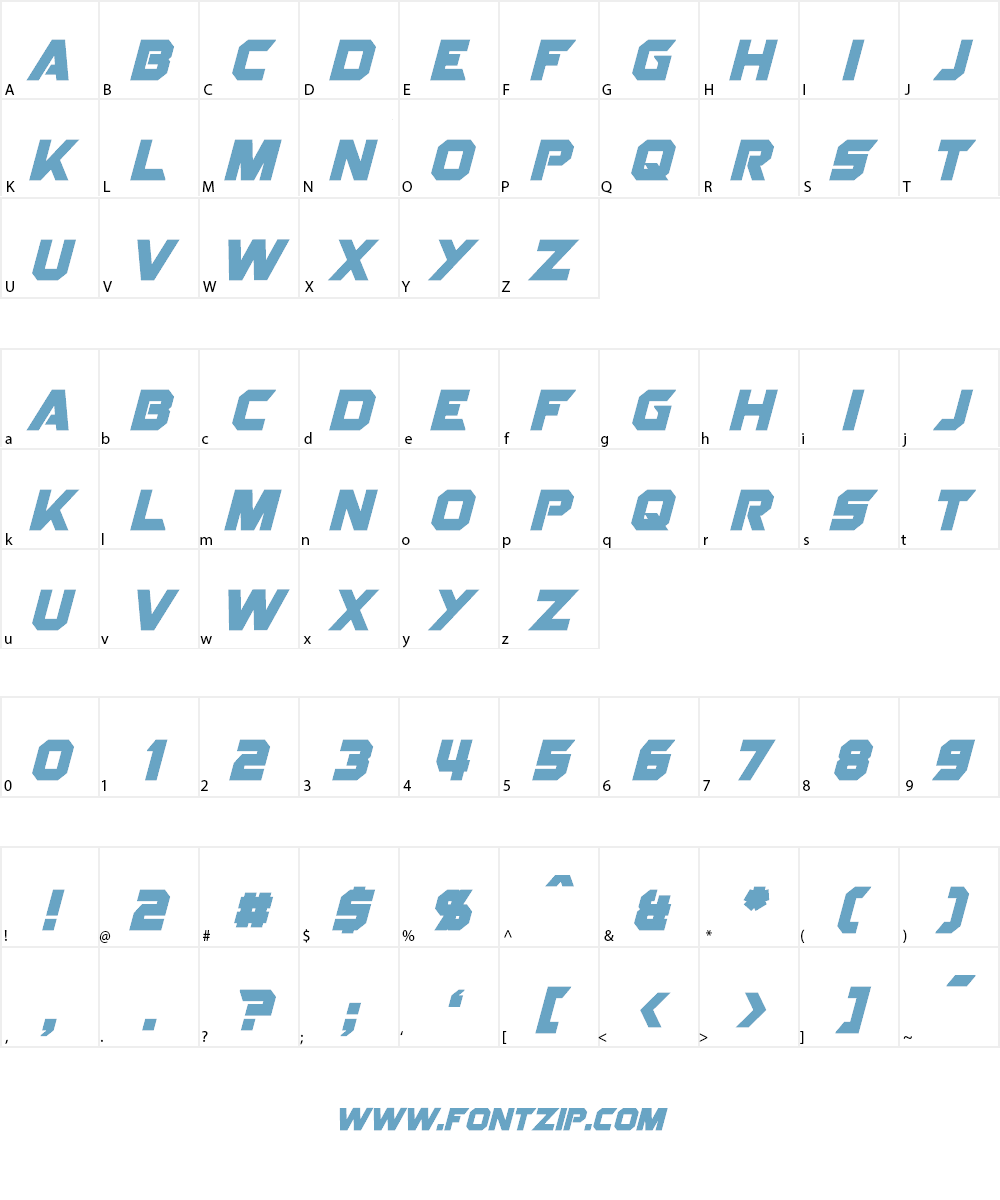
Starlord is a thick, angular font loosely based on the title logo of Marvel's Guardians of the Galaxy movie. Includes full alpha-numerics, extended punctuation, and Euro. Comes in regular and italic versions.